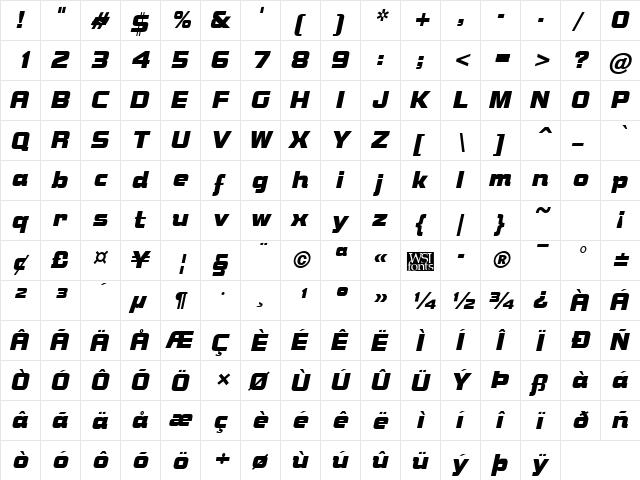
Bolster Italic
Design Context for Bolster Typeface
Bolster offers clean, dependable letterforms without strong stylistic allegiance, making it a practical choice for designers who need flexibility. Its italic angle brings a sense of urgency and motion to the letterforms.